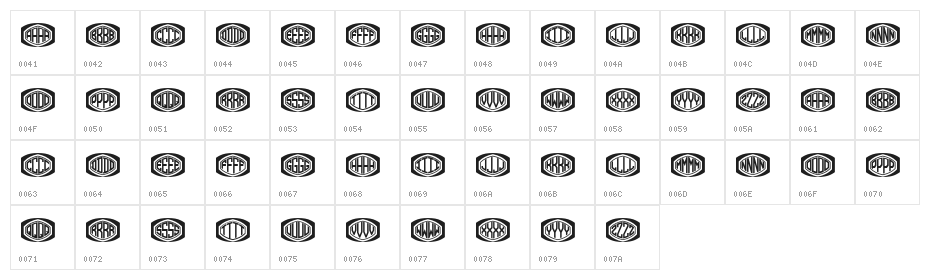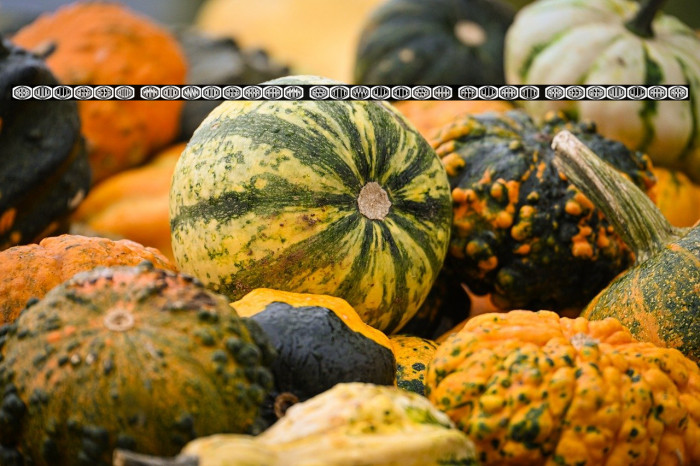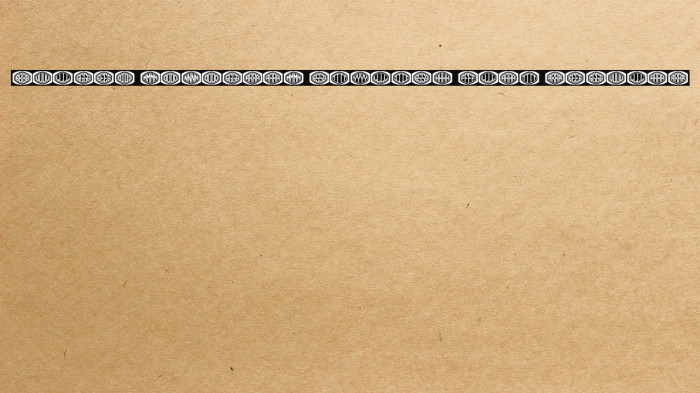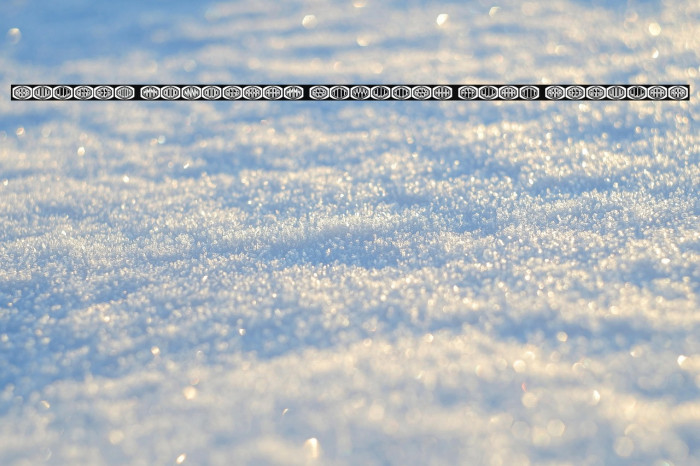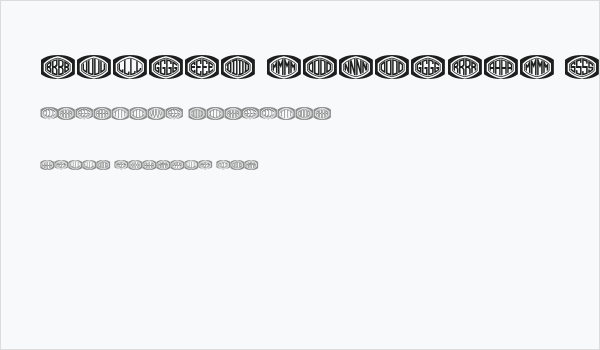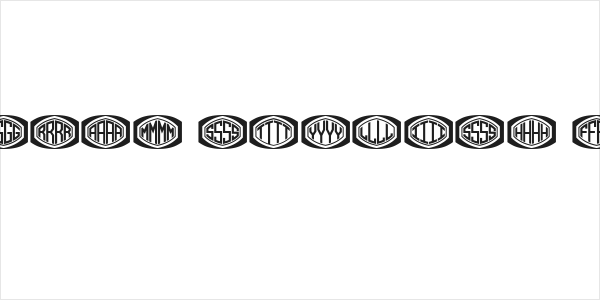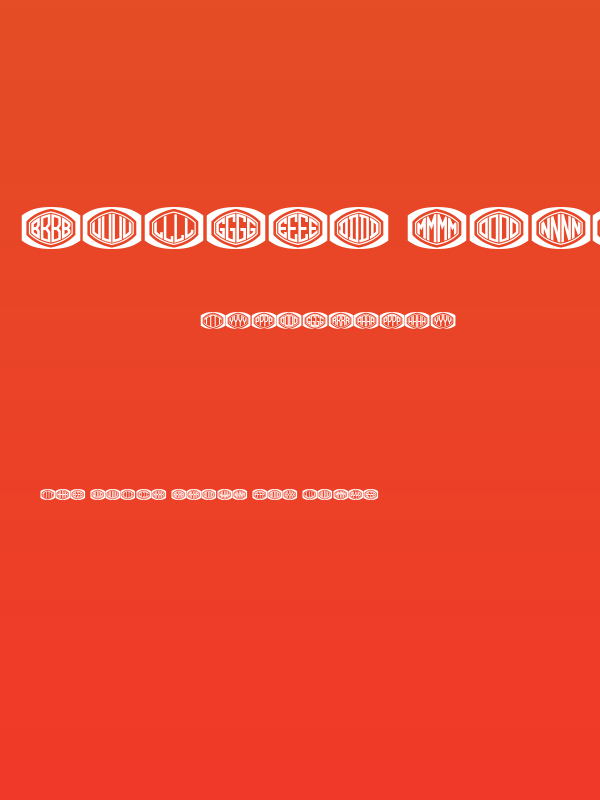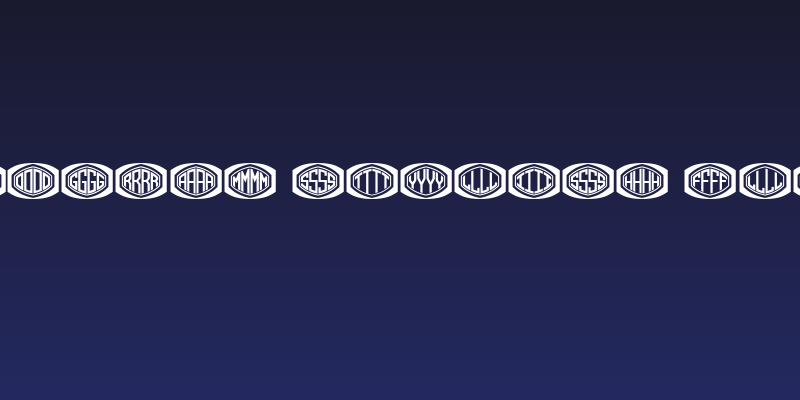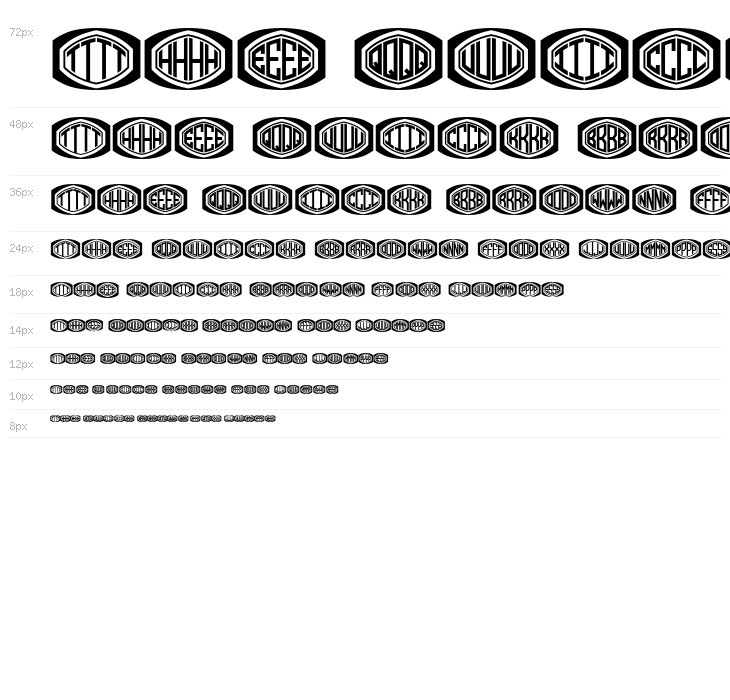
Bulged Monogram Stylish Flat Regular Font
Bulged Monogram Stylish Flat Regular Description
This font features a unique monogram style with each letter encapsulated in an oval shape, creating a distinct and stylish appearance. The characters are bold and flat, with a consistent thickness throughout, giving them a modern and clean look. The design is symmetrical and balanced, making it ideal for decorative purposes. The uppercase and lowercase letters are presented in a uniform manner, maintaining the same oval enclosure, which adds to the cohesive aesthetic. The font's geometric nature and bold presentation make it stand out, suitable for projects that require a touch of elegance and sophistication.
| Use Case | Logos, Decorative text, Monograms |
| Proposed Projects | Ideal for monogram designs, branding, logos, invitations, and decorative signage. |